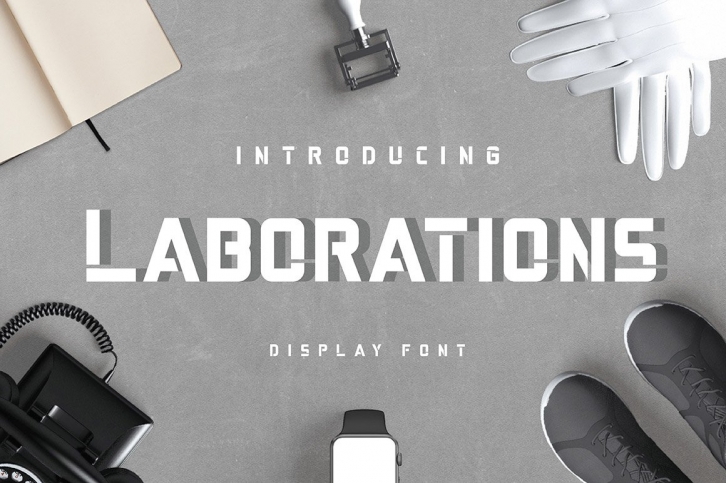
Laborations is a display typeface for though, masculine need design! Will be good for all of your projects - print, logo's, cards, business cards, interior or something else you need.